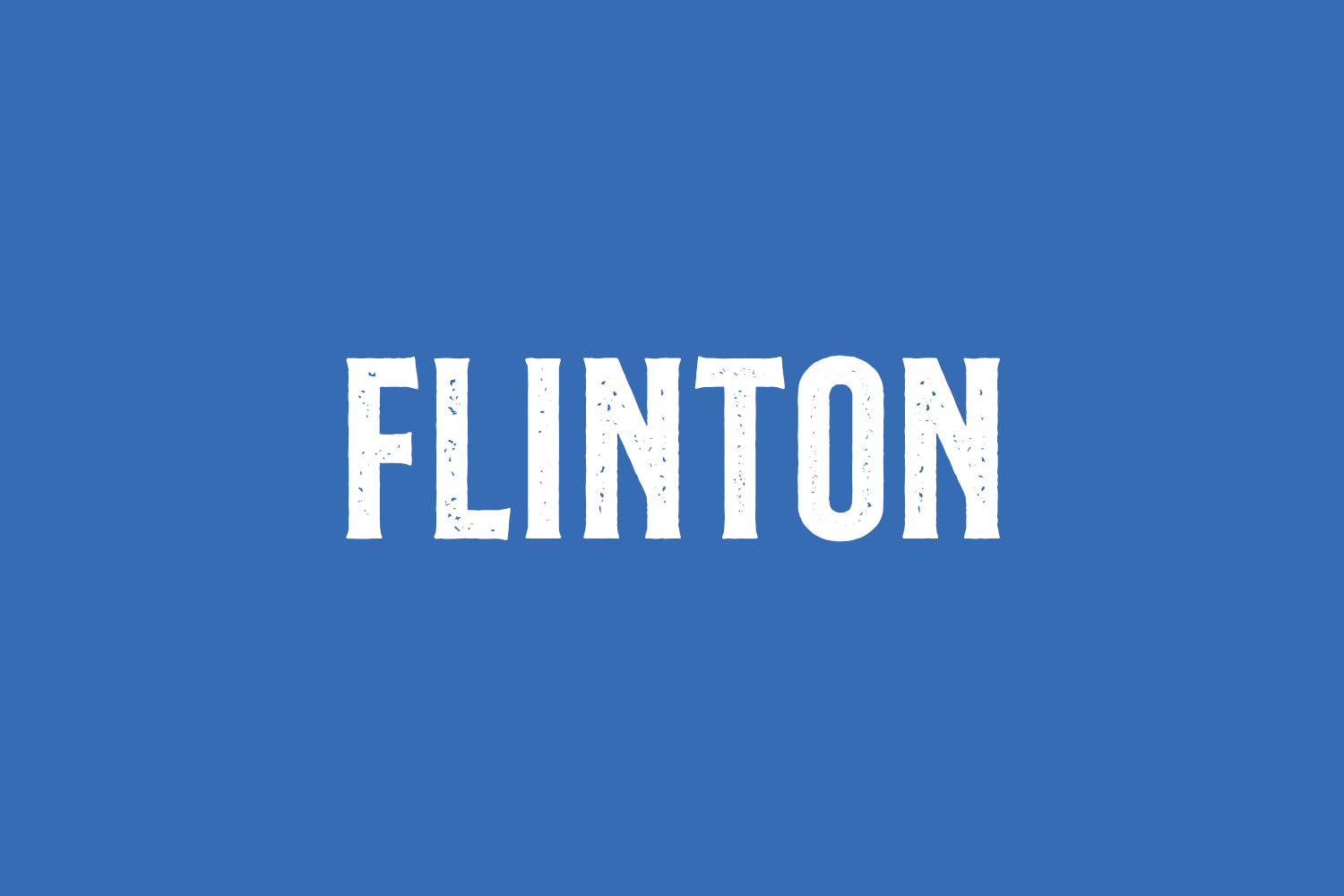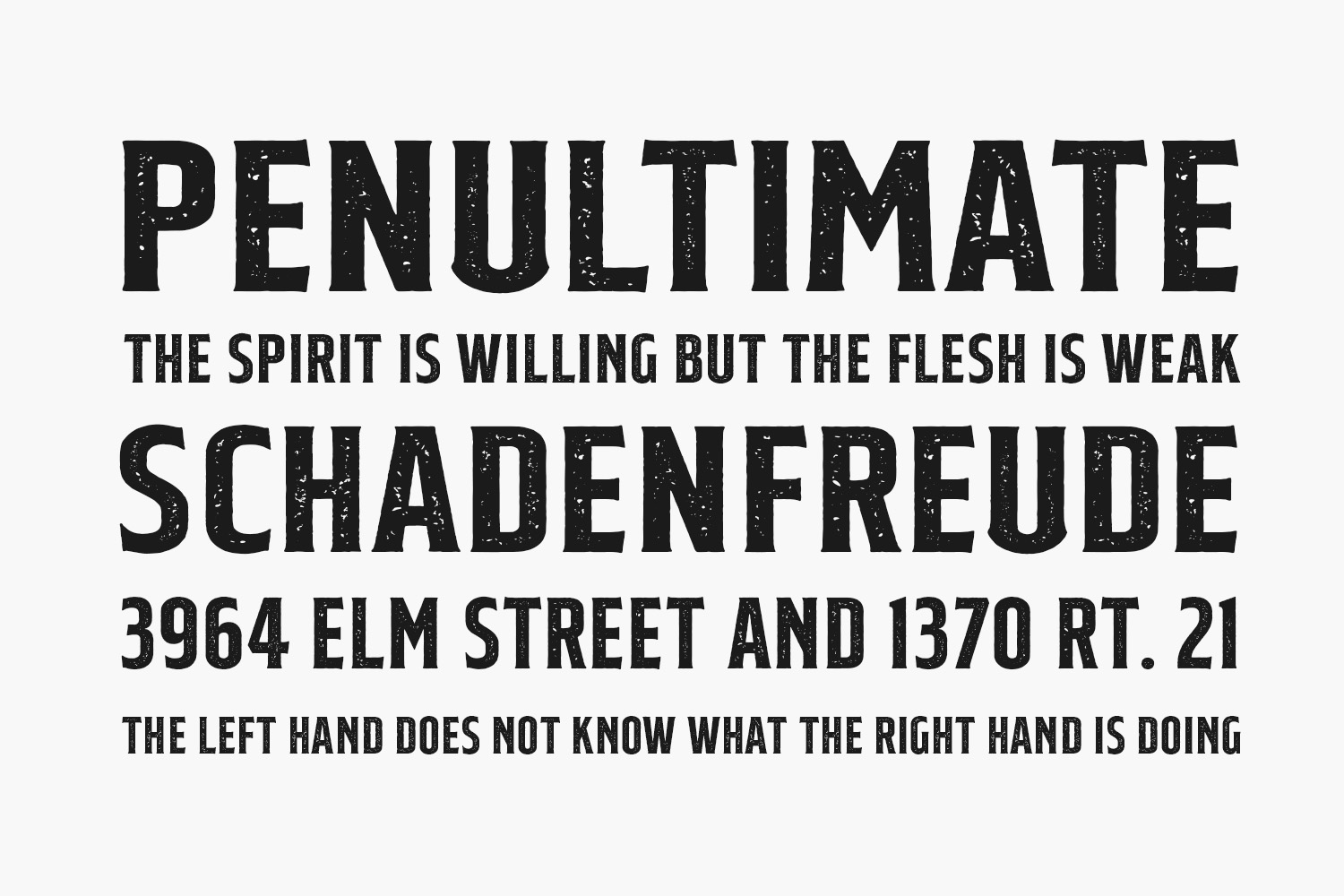
Flinton Free Font is a basic vintage-looking font family including serif and script with several variants. This font is suitable for designs that have elements of Vintage Concepts, such as logotypes, posters, merchandise designs, magazines, etc. Flinton Free Font was designed by Roams Type Co and is free for personal use only. Please purchase the full version for commercial use.